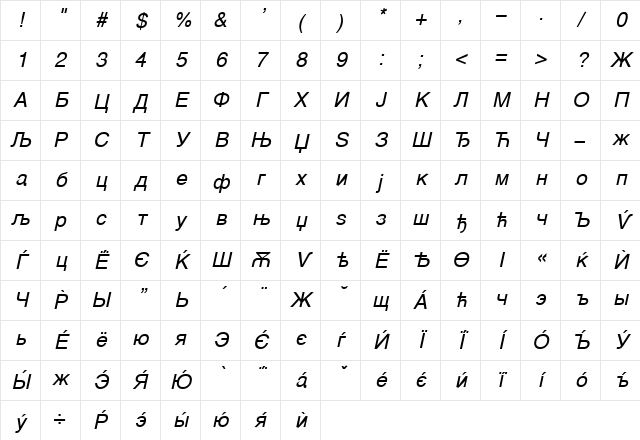
Helvetica Cirilica Italic
Helvetica Cirilica Family
Design Context for Helvetica Cirilica
Helvetica Cirilica is a composed and adaptable typeface that performs quietly and consistently across a wide range of design contexts. The slanted form adds forward momentum and visual energy.
Pro Tip: Use Helvetica Cirilica for emphasis, pull quotes, and subheadings where its slanted energy can add rhythm to the layout.